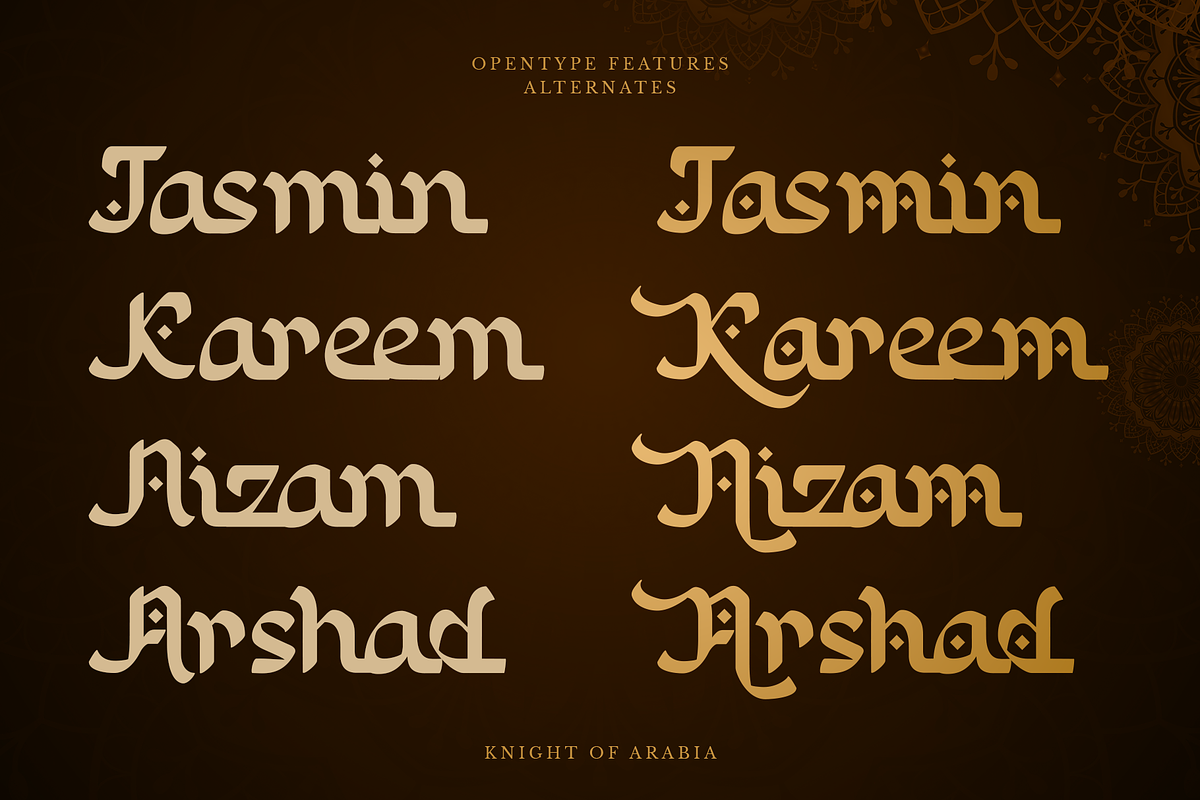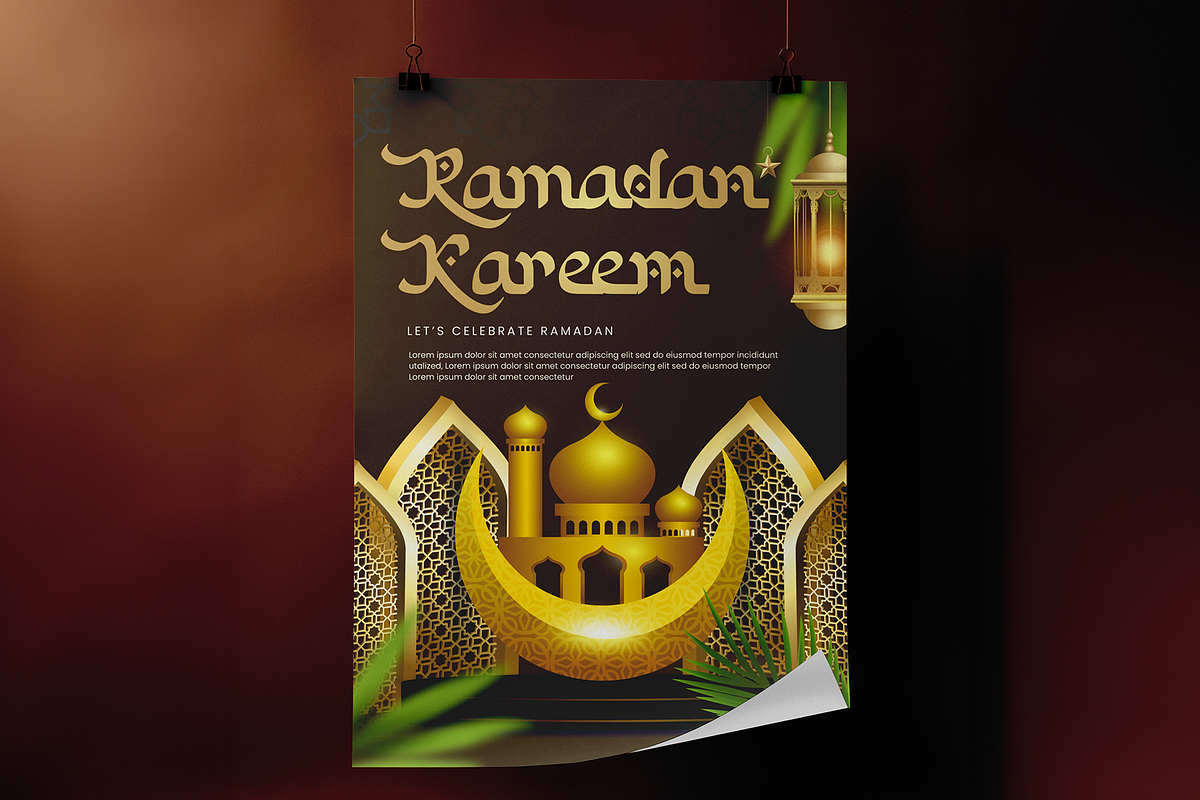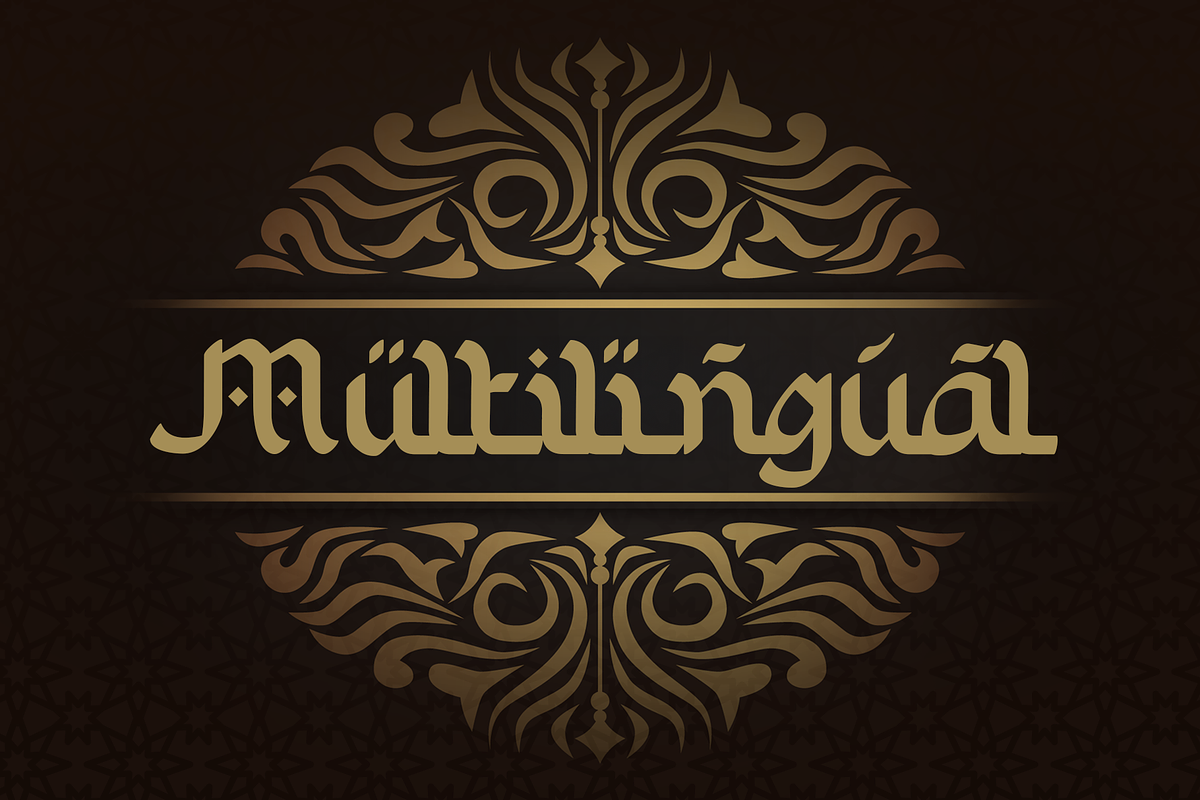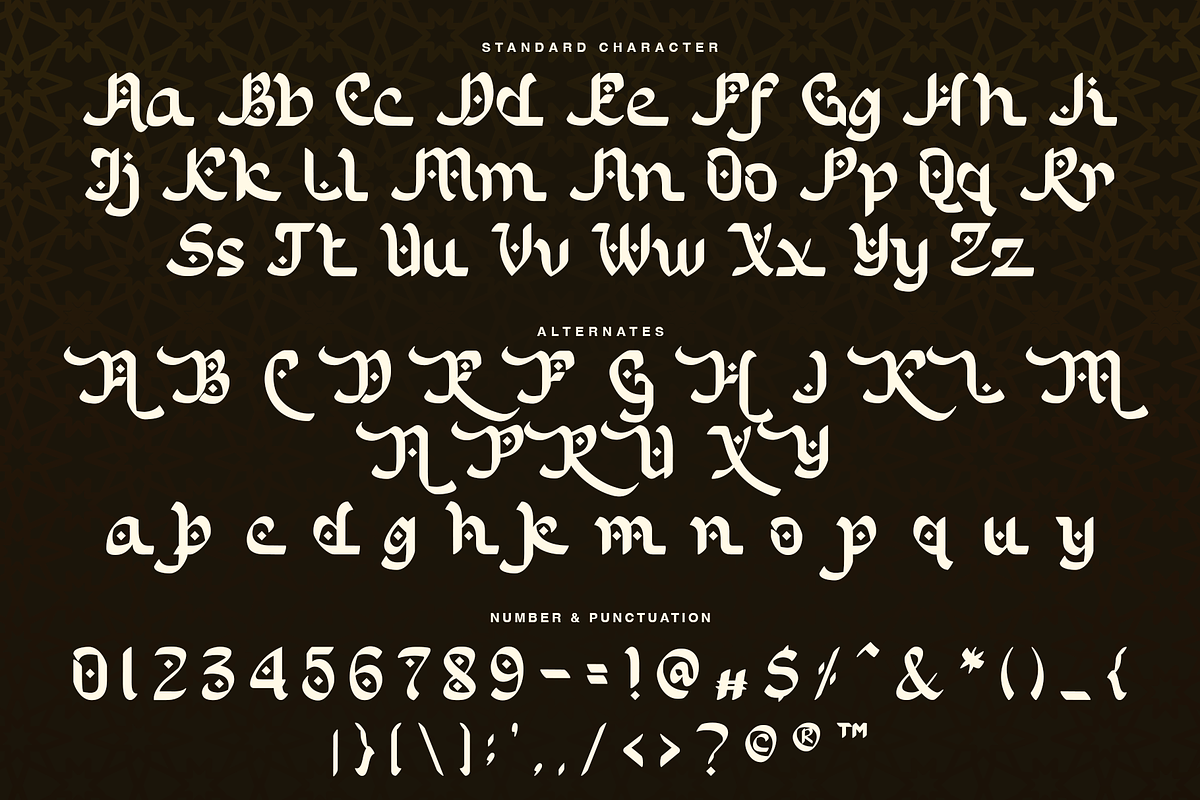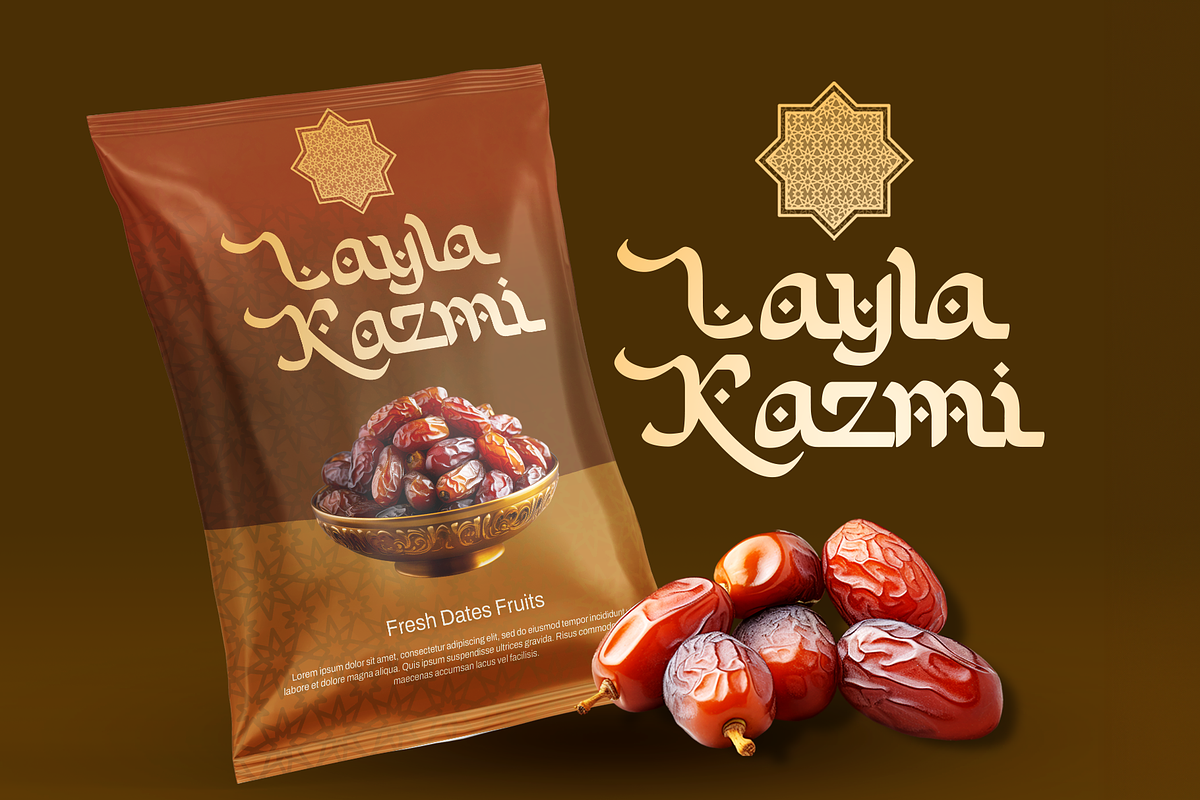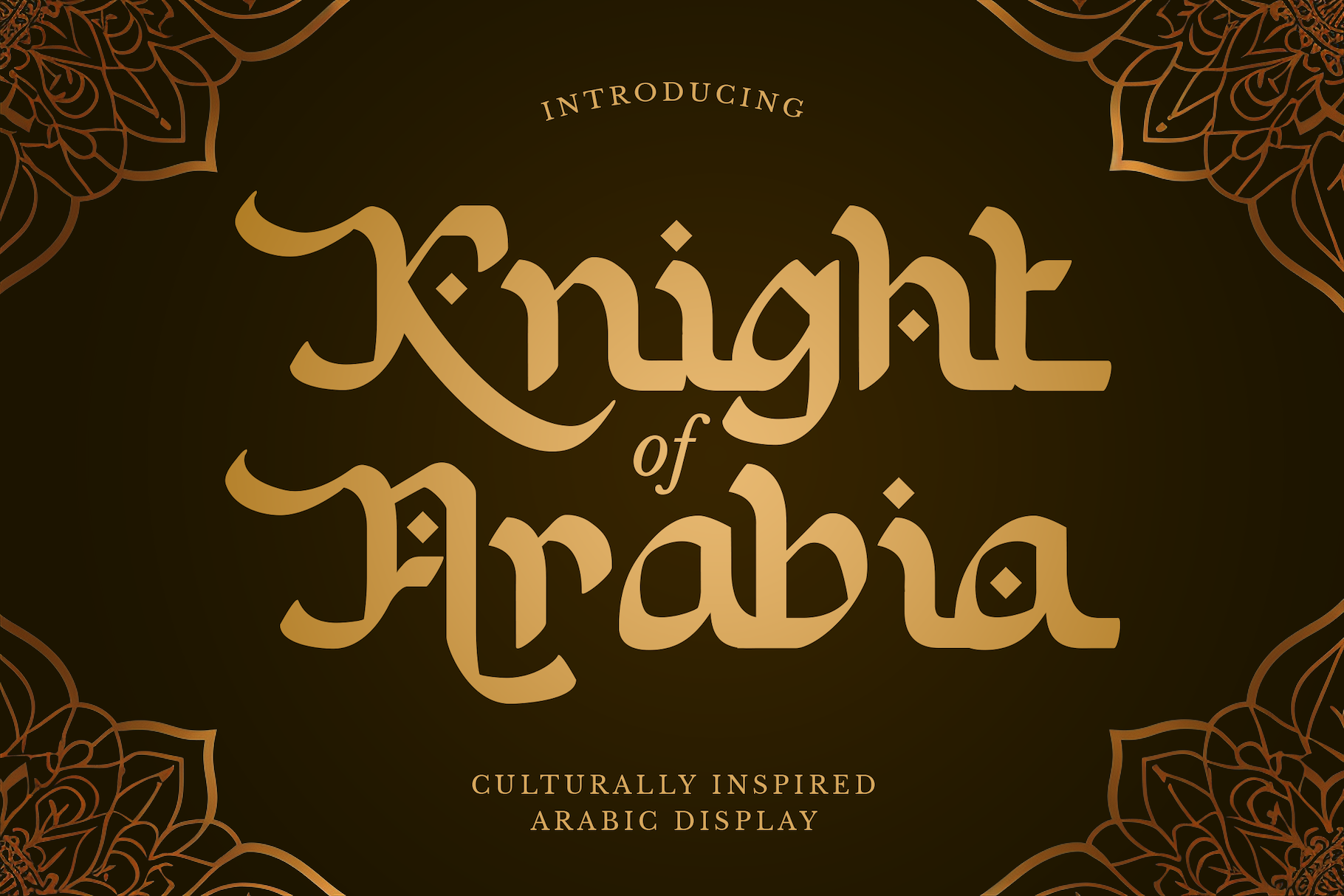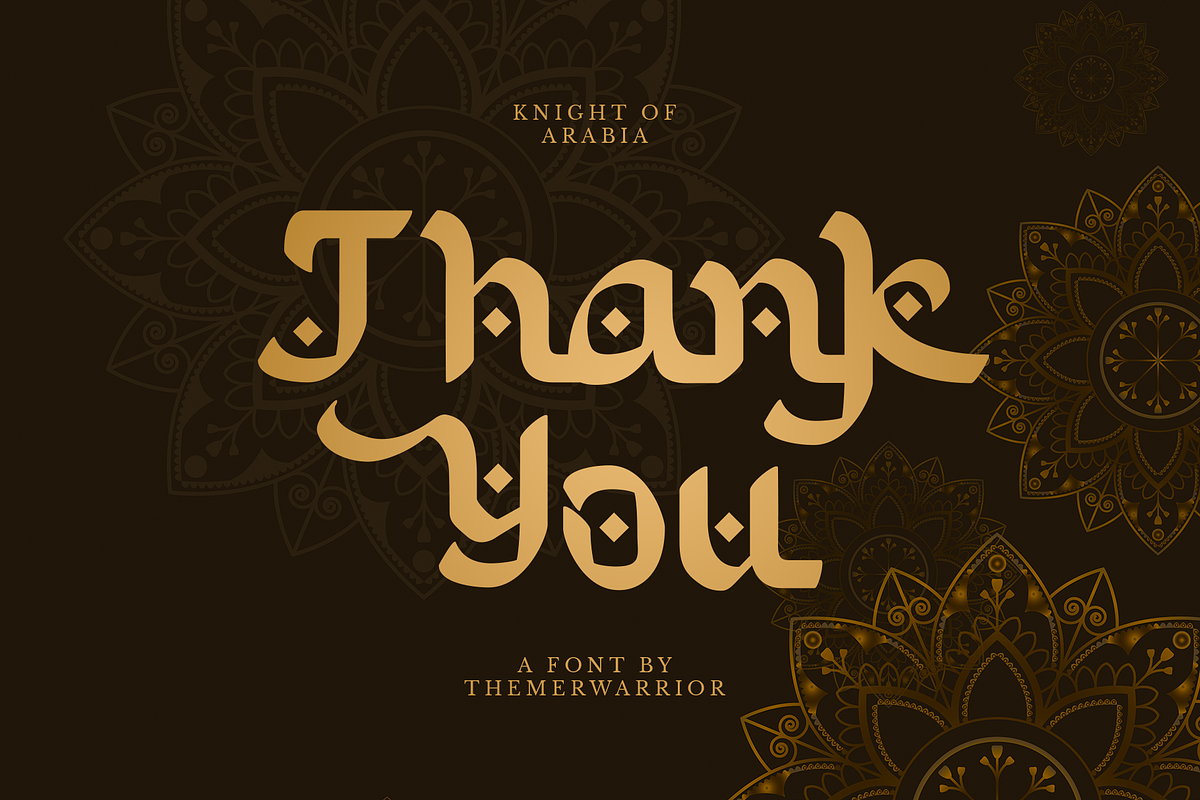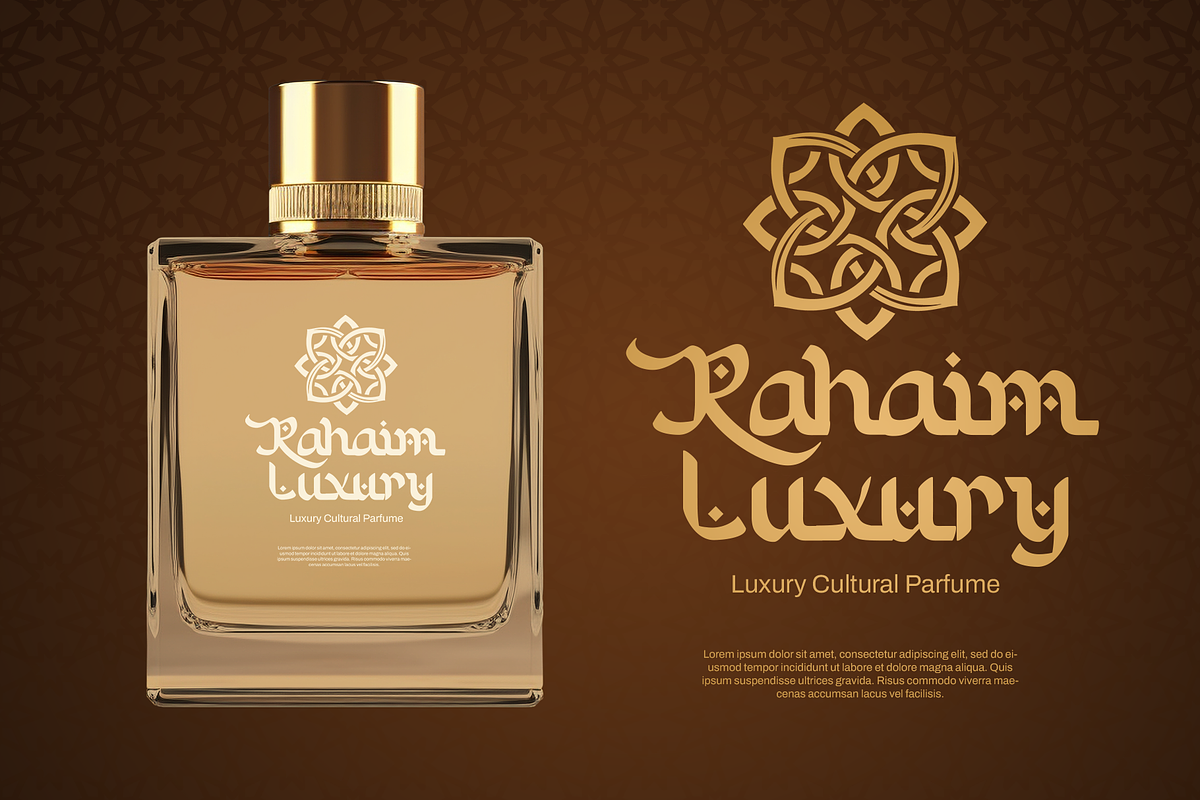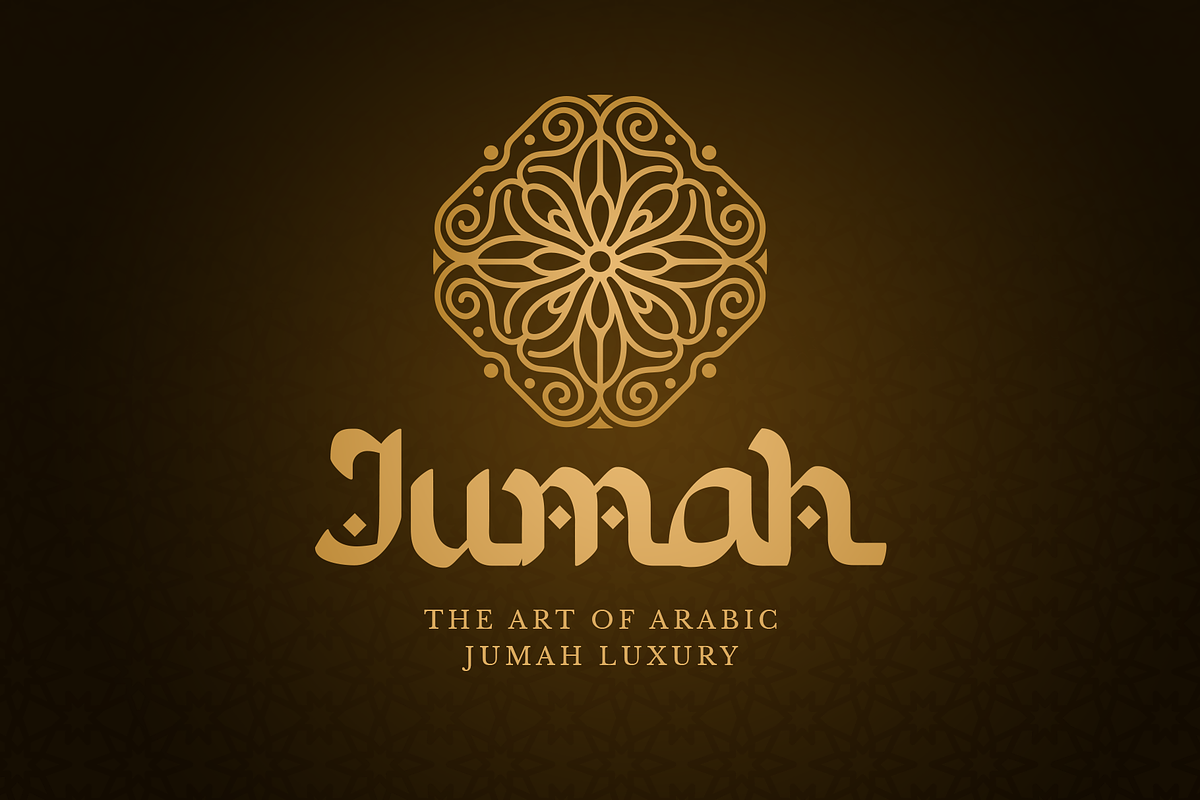
Knight of Arabia - Arabic Font
Knight of Arabia font is a stunning font inspired by the beauty of Arabic and Islamic calligraphy. Its flowing lines and elegant curves bring a touch of the Middle East to any design. Whether you're working on posters, logos, or packaging, Knight of Arabia adds a unique and stylish flair.